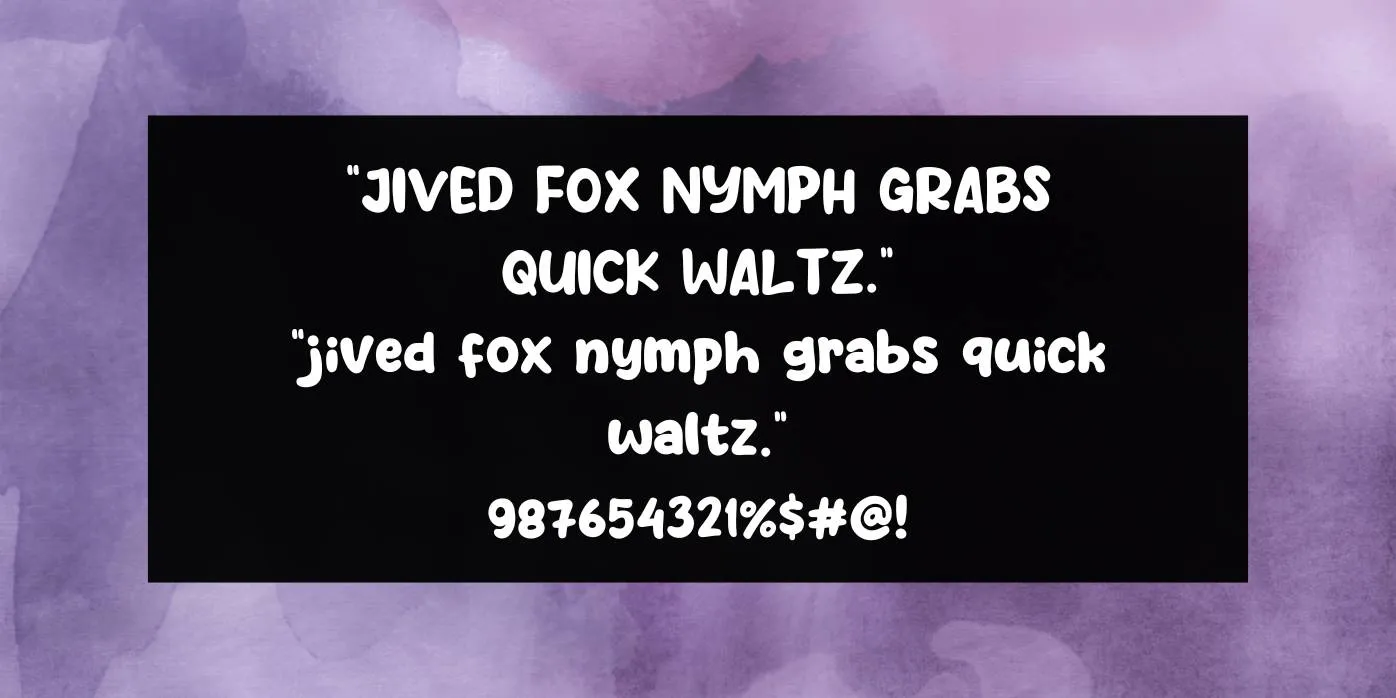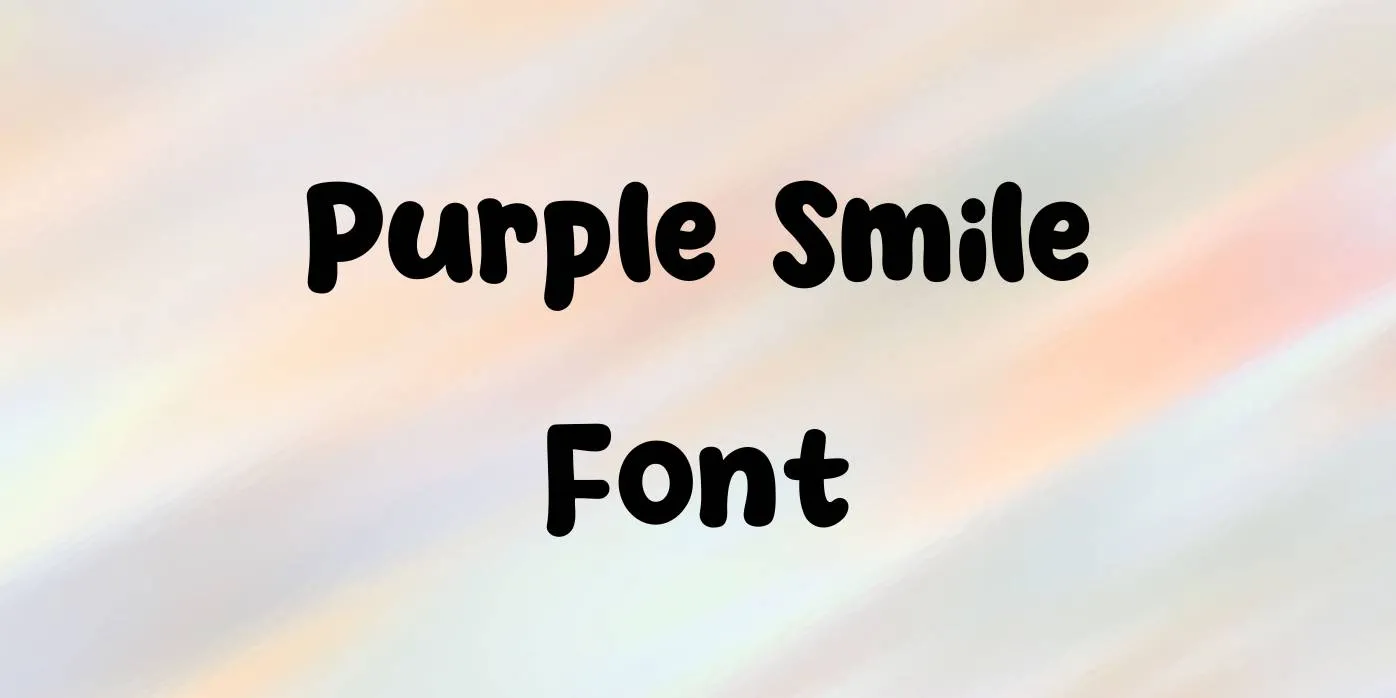
Purple Smile Font
Purple Smile Font is a fantastic and famous font. You can download this texture in OTF and TTF file format. This typeface is a cartoon type of font. Khurasan is the designer of this texture.